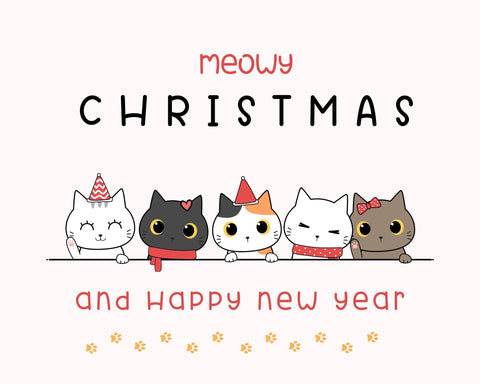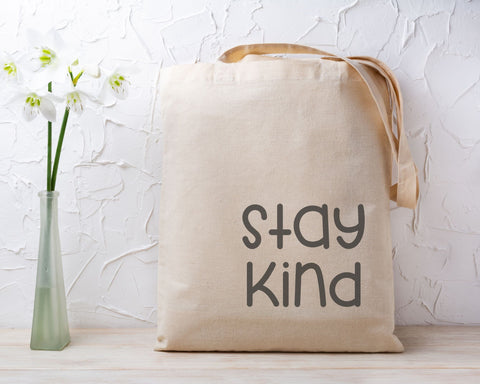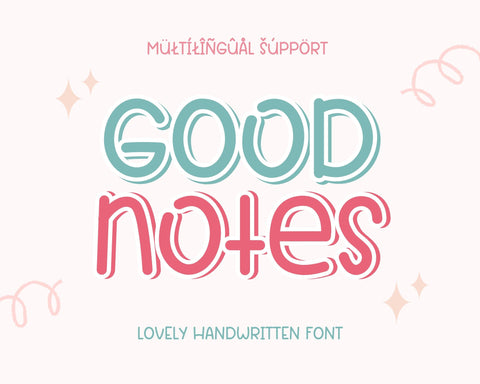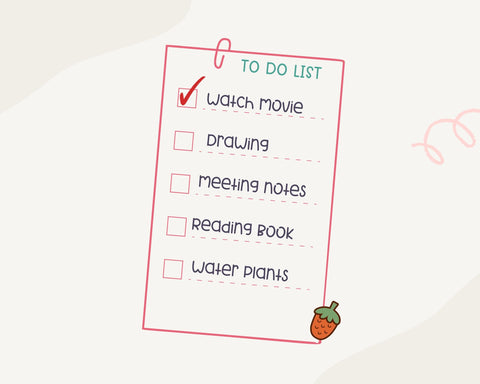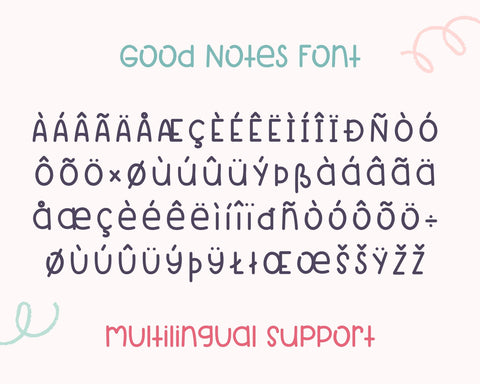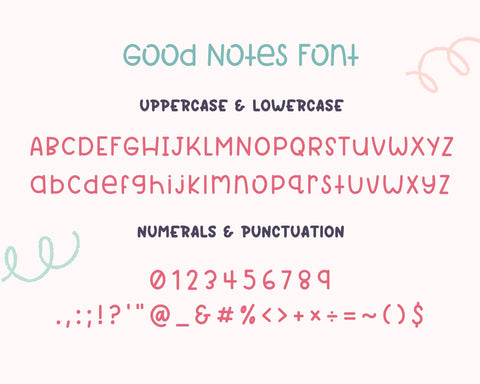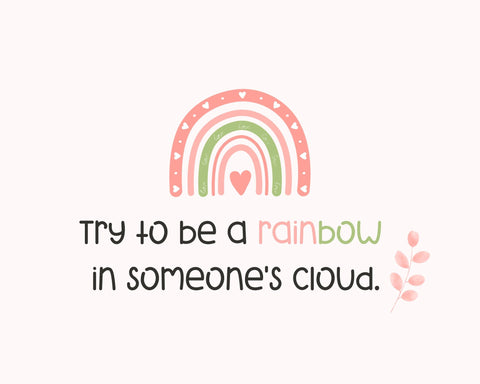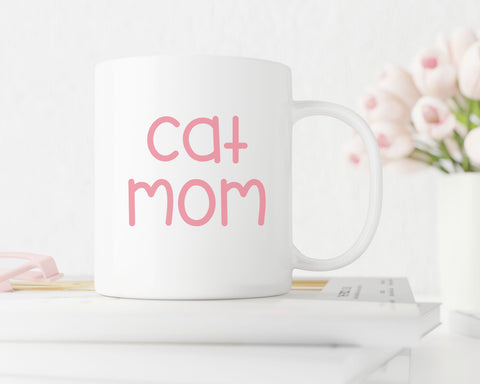
Good Note - Cute Handwriting Font
Good Note is a lovely handwritten font. You can design it to match all your Back to School-themed projects. It is suitable for taking notes, writing a diary, or making greeting cards.
**support multilingual